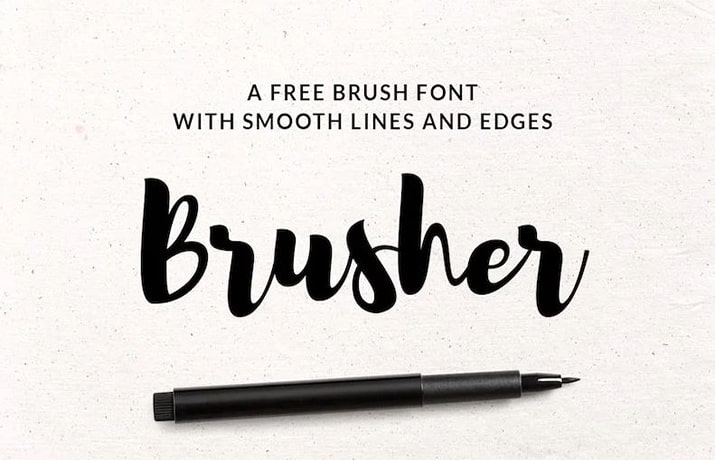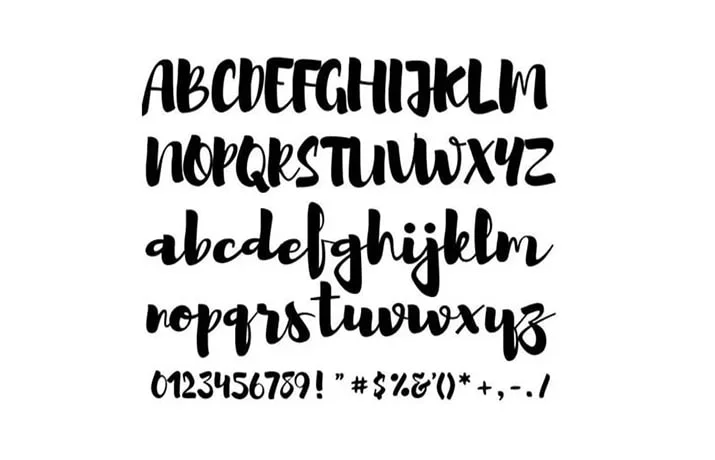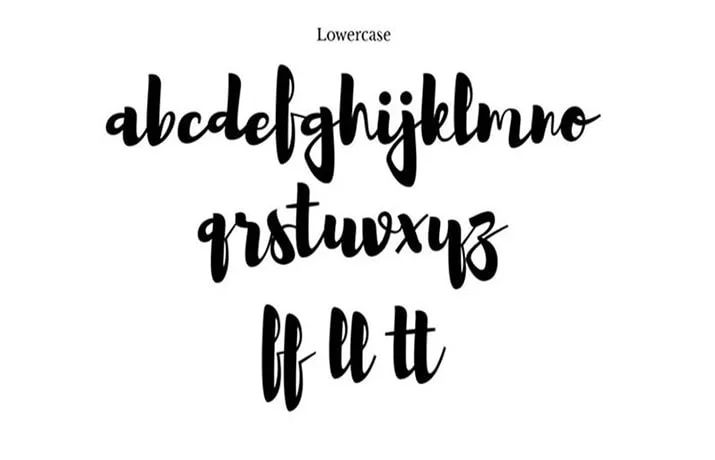
Brusher is a bold and modern brush pen typeface that high contrast line thickness along with uneven letter sizes give the font a unique character that will work perfectly in your lettering and branding projects.
The designer of this typeface is a Dutch designer Vlad Cristea, who designed based on the beautiful brushed strokes.
This makes this typeface more legible on both display and web design and it provides clear readability even on small text.
Moreover, the font’s irregular characters give each letter a unique flow that makes it a fashionable typeface in the font market.
Ideal for use in product designs, special quotes, logo designs, product packaging, invitation cards, birthday cards, logo designs, greeting cards, t-shirt designs, website templates, posters, banners, brochure layouts, app designs, printing on mugs, titles, signs, t-shirt printing, and many other coolest thing as well.
This font family comes in a regular weight but it contains more than 100 rare glyphs and ultramodern characters including uppercase, lowercase, punctuation marks, symbols, and updated icons.